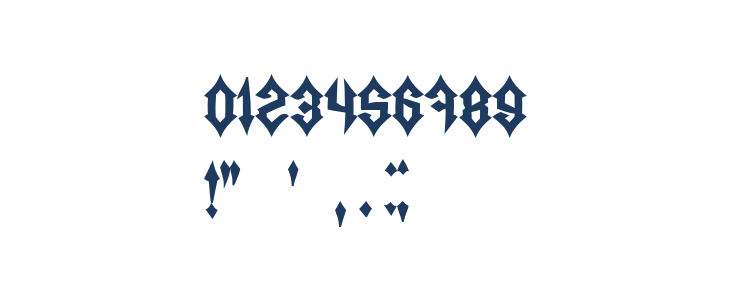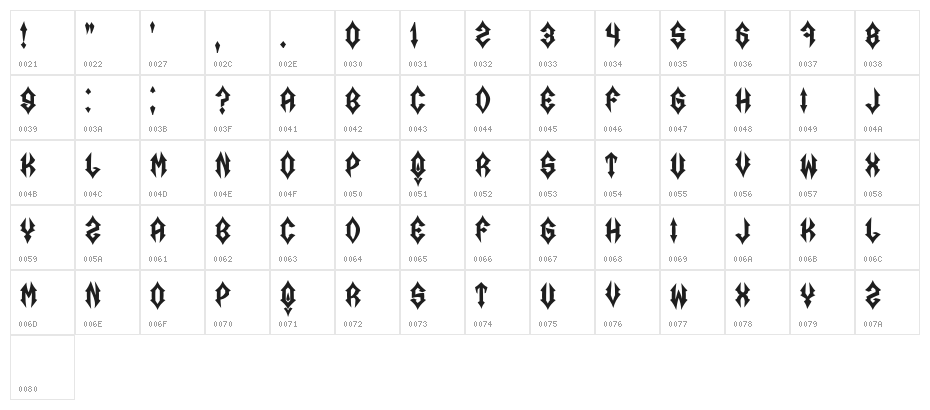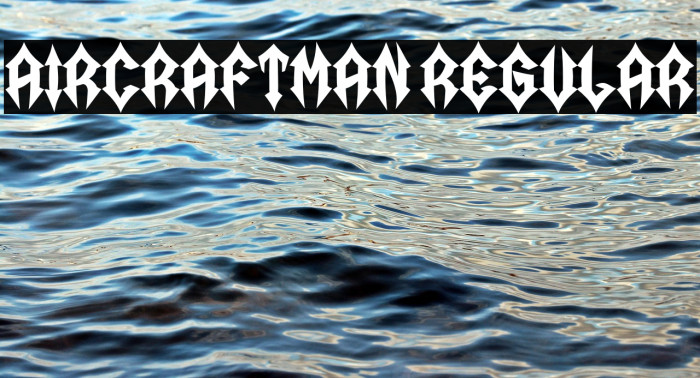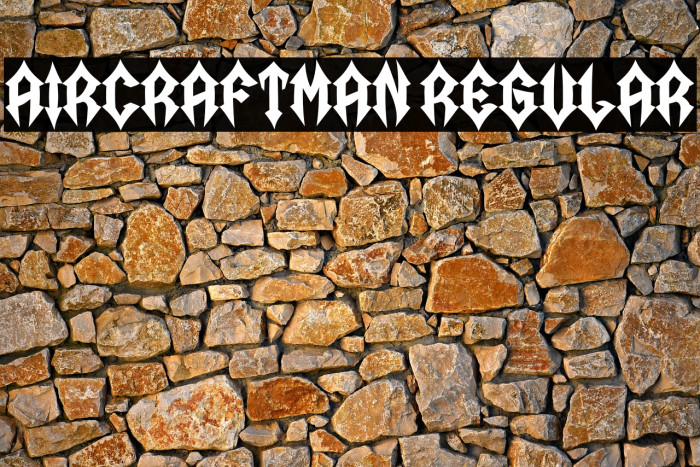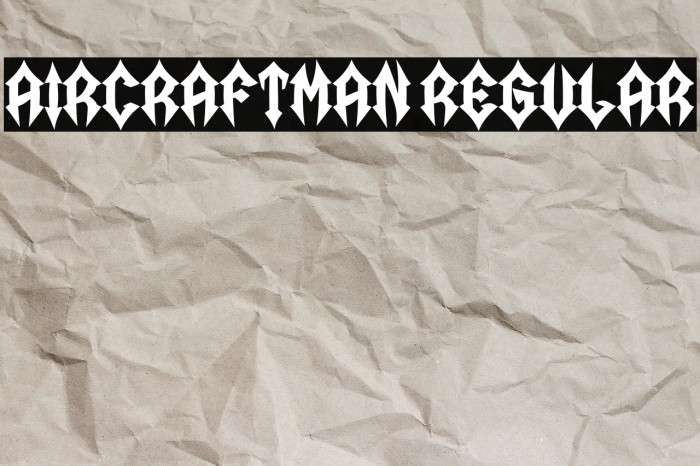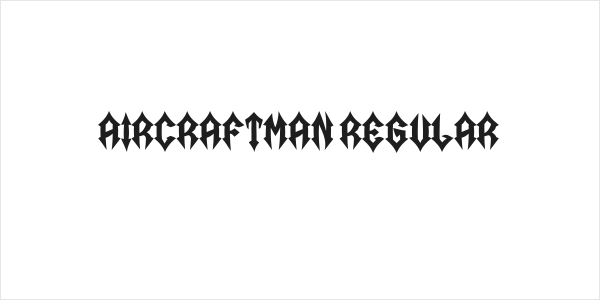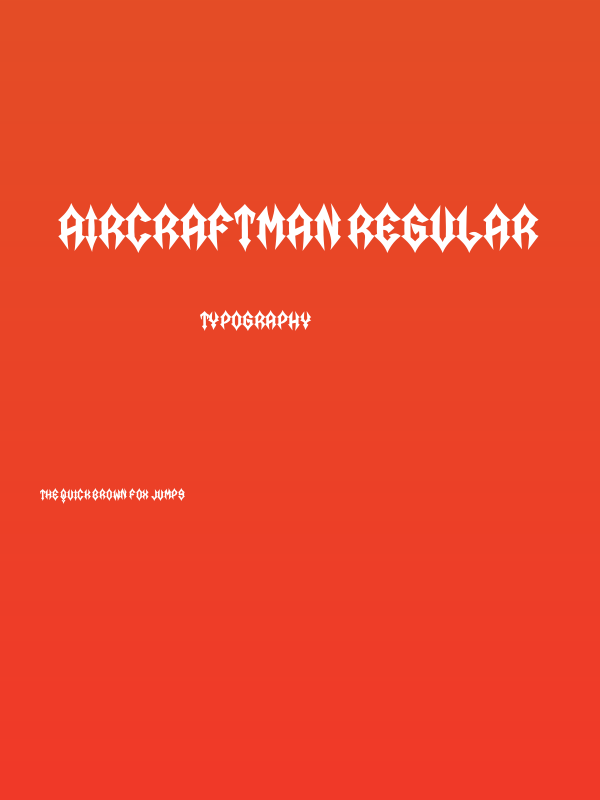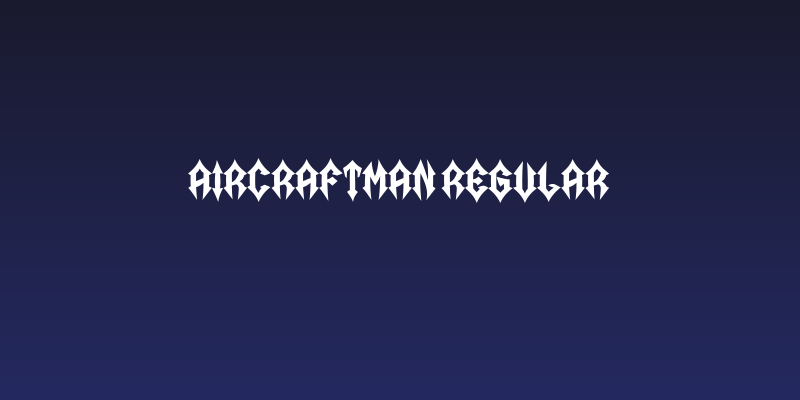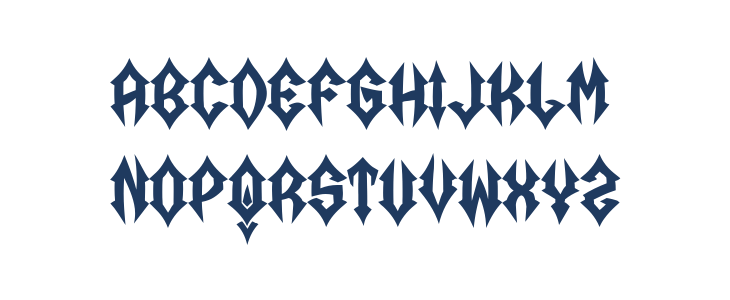
Aircraftman Regular Font
Aircraftman Regular Description
This font features a bold and striking design with sharp, angular edges and a gothic-inspired aesthetic. The characters are highly stylized, with pointed serifs and a dramatic presence that commands attention. The uppercase and lowercase letters maintain a consistent style, creating a cohesive look across the alphabet. The numbers and special characters follow the same design principles, ensuring uniformity throughout. This font's unique appearance makes it ideal for projects that require a strong visual impact.
Overall StyleGothic, Decorative
Proposed ProjectsIdeal for posters, album covers, video game titles, and branding that requires a bold statement.